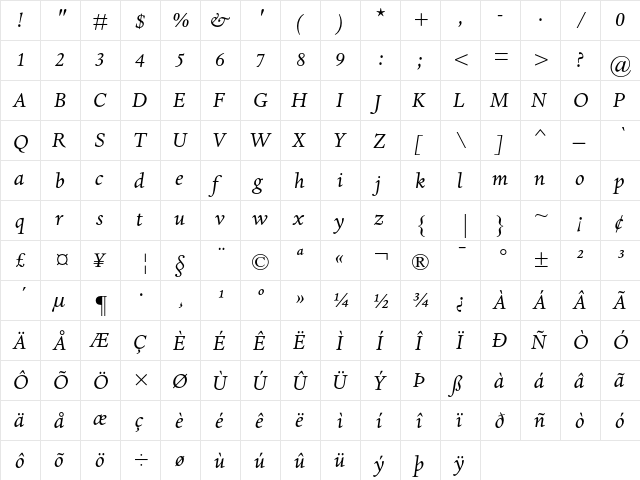
Dante MT Italic
Design Context for Dante MT Typeface
Dante MT takes a measured approach to typography — its balanced proportions and neutral character make it a reliable workhorse for both digital and print work. The slanted form adds forward momentum and visual energy.
Pro Tip: Try Dante MT for annotation and caption copy alongside an upright companion — the contrast in angle creates a dynamic but ordered typographic system.